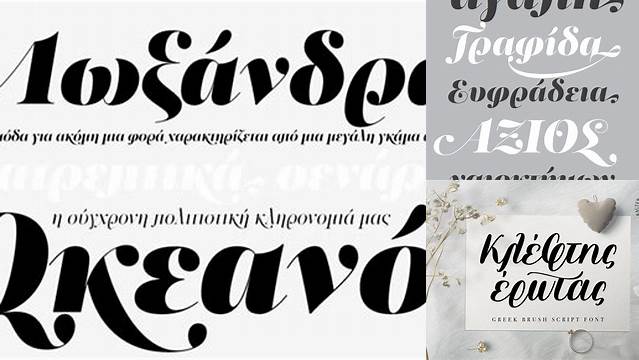
Free Greek Calligraphy Fonts: Best Options & How To Use Them
Hey guys! Are you looking to add a touch of elegance and tradition to your Greek-themed projects? Well, you've come to the right place! We're diving deep into the world of free Greek calligraphy fonts, exploring everything from where to find them to how to use them effectively. Let's get started!
1. Understanding the Nuances of Greek Calligraphy Fonts
Greek calligraphy fonts, guys, are more than just pretty letters; they carry the weight of history and culture. The unique letterforms and flowing strokes can add a special touch to any design, but it's important to understand the nuances to use them effectively. When choosing calligraphy fonts for the Greek language, consider the historical context, the intended mood, and the readability of the font. Some fonts might be better suited for formal invitations, while others work well for more casual designs. It’s also crucial to ensure that the font supports all the Greek characters you need, including accents and diacritics. Understanding these nuances will help you select a font that truly enhances your project and conveys the right message.
3. Top Free Traditional Greek Calligraphy Fonts
For those aiming for authenticity, traditional Greek calligraphy fonts are the way to go. These fonts often mimic the hand-lettered styles of ancient Greek manuscripts and inscriptions. Think of the elegant curves and precise strokes that evoke a sense of history and tradition. Some top choices in this category include fonts that resemble Byzantine scripts or the classic Greek uncial. These fonts are particularly well-suited for projects that need a formal, historical feel, such as wedding invitations, historical documents, or religious texts. When selecting a traditional font, pay attention to the clarity of the letterforms and the consistency of the style. A well-chosen traditional font can add a strong and timeless quality to your design.
4. Modern Greek Calligraphy Fonts: A Contemporary Twist
If you're looking for something a bit more contemporary, modern Greek calligraphy fonts offer a fresh take on the classic style. These fonts often incorporate elements of modern design, such as clean lines, bold strokes, and unique letterforms. They can be a great choice for projects that need a touch of elegance but also want to feel current and stylish. Modern fonts might include variations with thicker or thinner strokes, more stylized curves, or even a slightly more casual feel. When using a modern font, consider how it complements the overall design. It’s a great way to make your project stand out while still honoring the beauty of Greek calligraphy. So, if you're aiming for a blend of tradition and trend, a modern Greek calligraphy font might be just what you need!
5. Calligraphy Fonts for Greek Wedding Invitations
Planning a Greek-themed wedding? Calligraphy fonts can add a touch of romance and elegance to your invitations. The right font can set the tone for your entire event, evoking the beauty and tradition of Greek culture. For wedding invitations, you might want to consider fonts that are both formal and graceful, with flowing lines and delicate details. Traditional Greek calligraphy fonts can be particularly stunning for this purpose, but modern interpretations can also work well. Remember to choose a font that is easy to read, especially for important details like dates and times. A beautiful Greek calligraphy font can transform your wedding invitations into cherished keepsakes. Think about the overall style of your wedding and choose a font that reflects that aesthetic.
6. Free Greek Fonts for Logo Design
Creating a logo that stands out? A free Greek calligraphy font can give your brand a unique and sophisticated identity. The distinctive letterforms of Greek calligraphy can help your logo convey a sense of history, culture, and artistry. When choosing a font for your logo, consider your brand's personality and the message you want to communicate. A traditional font might be ideal for a company with a long history or a focus on classic values, while a modern font could suit a more innovative or contemporary brand. Ensure the font is legible at various sizes and works well in both digital and print formats. Using a Greek calligraphy font in your logo can help you create a memorable and impactful brand presence. Make sure to test the font in different contexts to see how it looks and feels.
7. Using Greek Calligraphy in Digital Art
Digital artists, listen up! Greek calligraphy can add a beautiful and distinctive element to your artwork. Whether you're creating digital paintings, graphic designs, or web graphics, a well-chosen Greek calligraphy font can elevate your work. Consider using calligraphy for titles, captions, or even as a design element within your artwork. The flowing lines and unique letterforms can create visual interest and add a touch of elegance. Experiment with different fonts and styles to see what works best for your project. You can also combine calligraphy with other design elements, such as images and illustrations, to create a cohesive and visually appealing piece. So, unleash your creativity and see how Greek calligraphy can enhance your digital art.
8. Greek Calligraphy Fonts for Educational Materials
For educators and students alike, Greek calligraphy fonts can be a valuable tool for learning and teaching about Greek language and culture. Using calligraphy fonts in educational materials, such as handouts, presentations, and worksheets, can make the learning process more engaging and visually appealing. Students can also benefit from practicing writing Greek letters in calligraphy, which can help them develop a deeper understanding of the language and its history. When choosing fonts for educational purposes, prioritize clarity and readability. A font that is easy to read will ensure that students can focus on the content rather than struggling to decipher the letters. Greek calligraphy fonts can bring a touch of history and artistry to your educational materials.
9. Free Fonts for Ancient Greek Texts
Working with ancient Greek texts? You'll need fonts that accurately represent the historical letterforms and diacritics. Fortunately, there are several free fonts available that are specifically designed for this purpose. These fonts often include a full range of Greek characters, including those used in ancient texts, such as accents, breathings, and other diacritical marks. Using the correct font is crucial for ensuring the accuracy and authenticity of your work. When choosing a font for ancient Greek texts, consider the historical period and style of the text you're working with. Some fonts may be better suited for certain types of texts than others. These fonts allow scholars and enthusiasts to preserve and study these important historical documents.
So there you have it! Everything you need to know to get started with free Greek calligraphy fonts. Have fun exploring this beautiful art form, and don't forget to let your creativity shine!